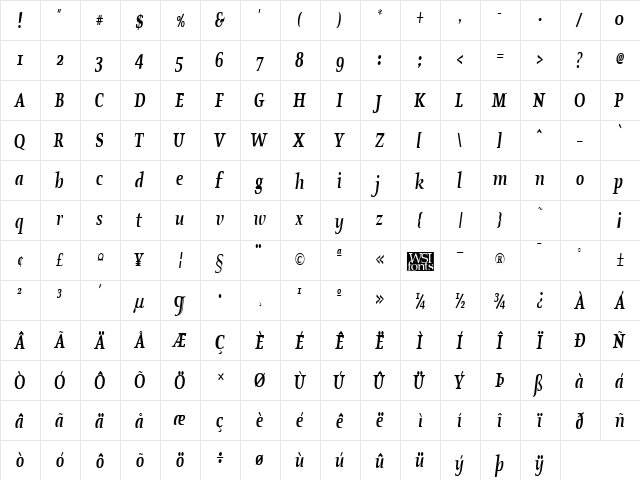
OldstyleCondensed Bold Italic Font Preview
Design Context for OldstyleCondensed Typeface
OldstyleCondensed carries the refined structure of traditional serif typography, with bracketed terminals and considered proportions that communicate credibility and craft. Its italic angle brings a sense of urgency and motion to the letterforms. The heavy weight commands attention and anchors typographic hierarchies. The condensed width makes it efficient for tight spaces without sacrificing legibility.